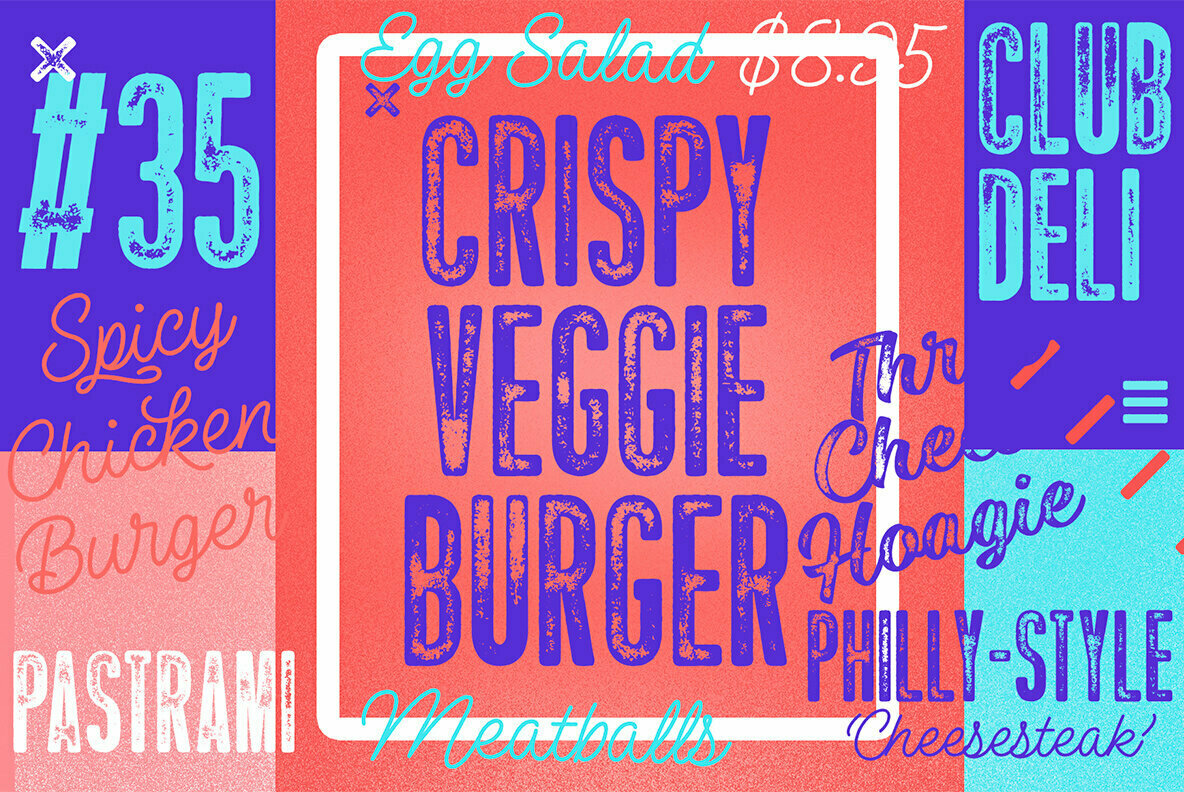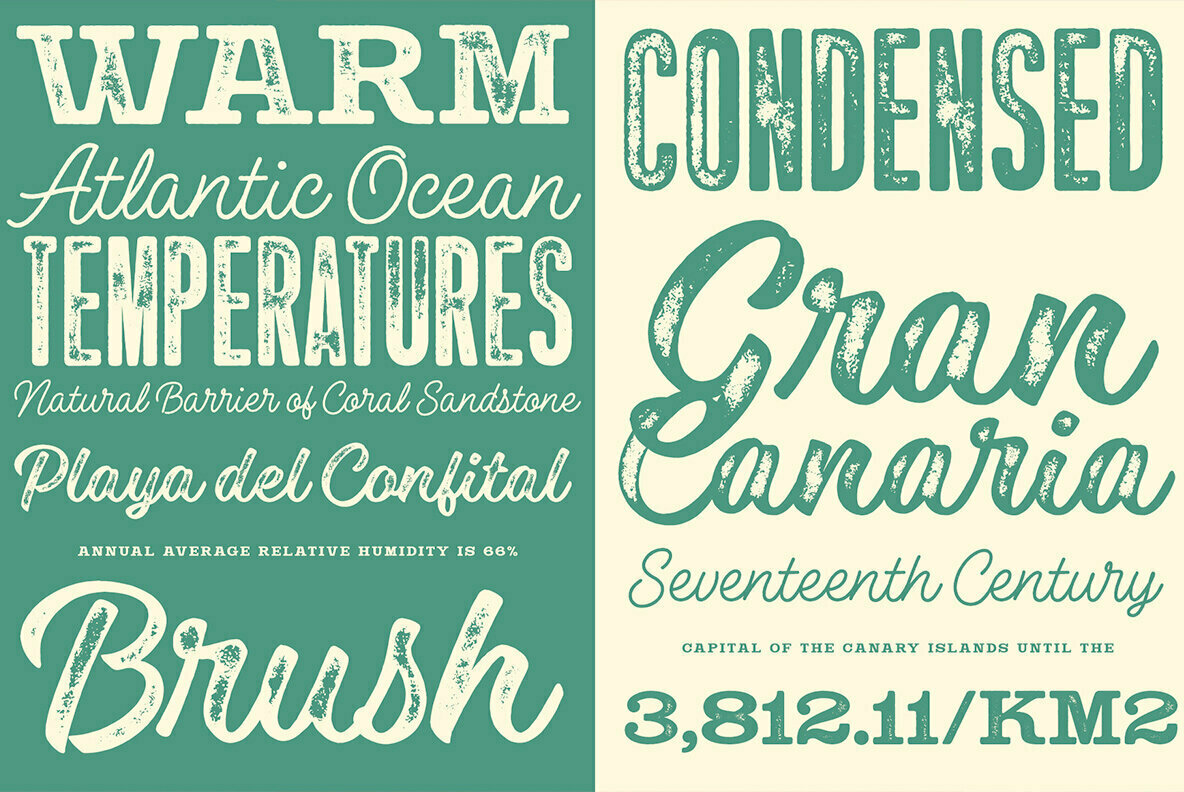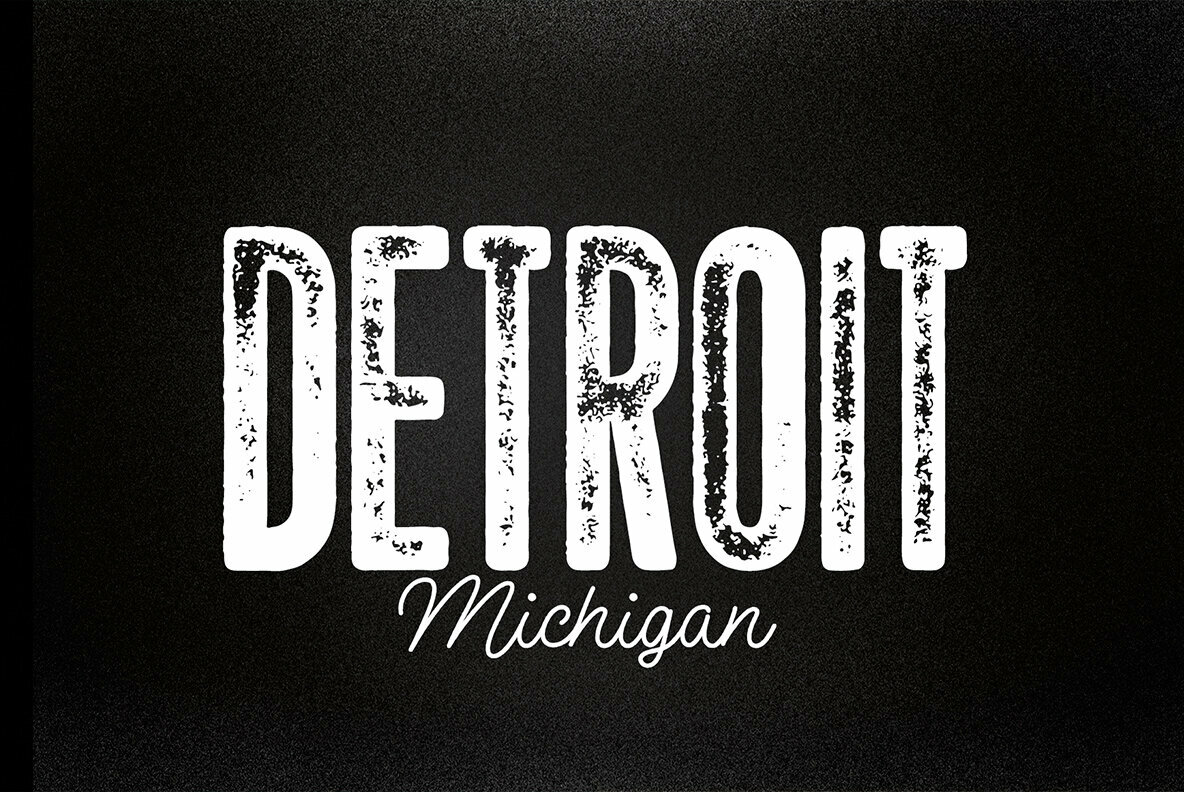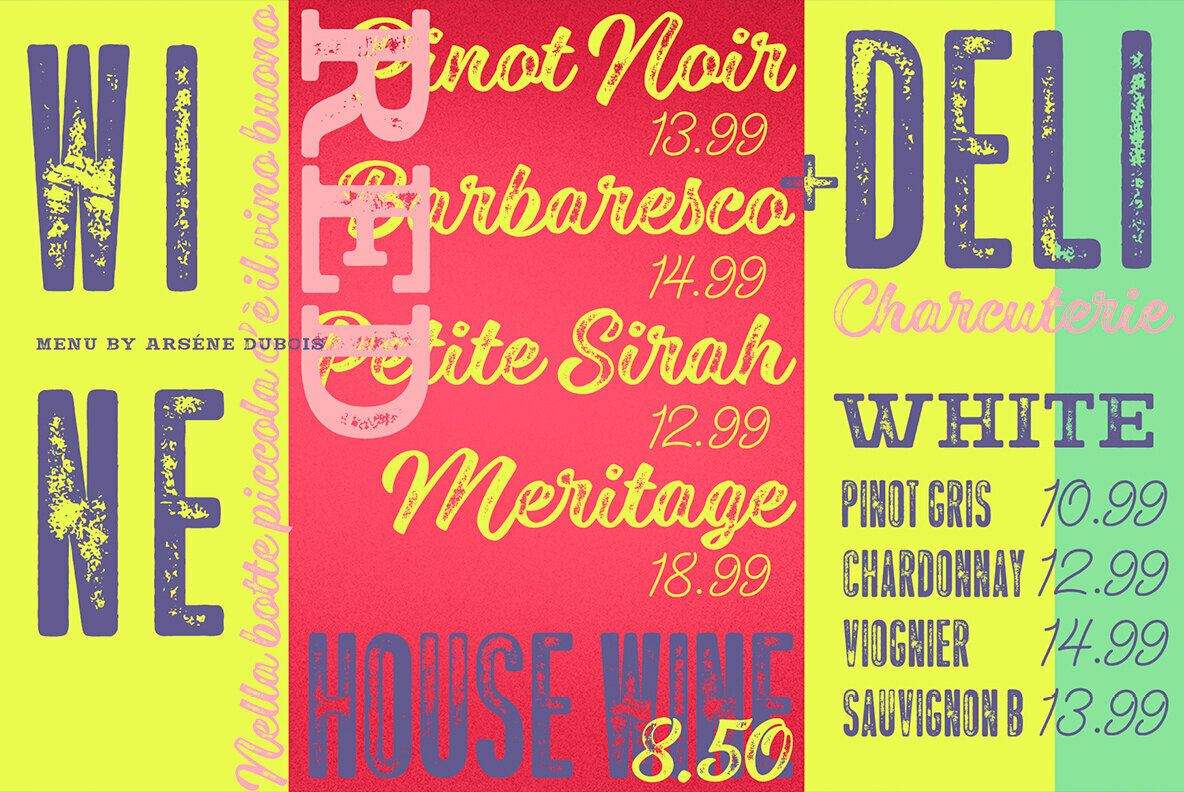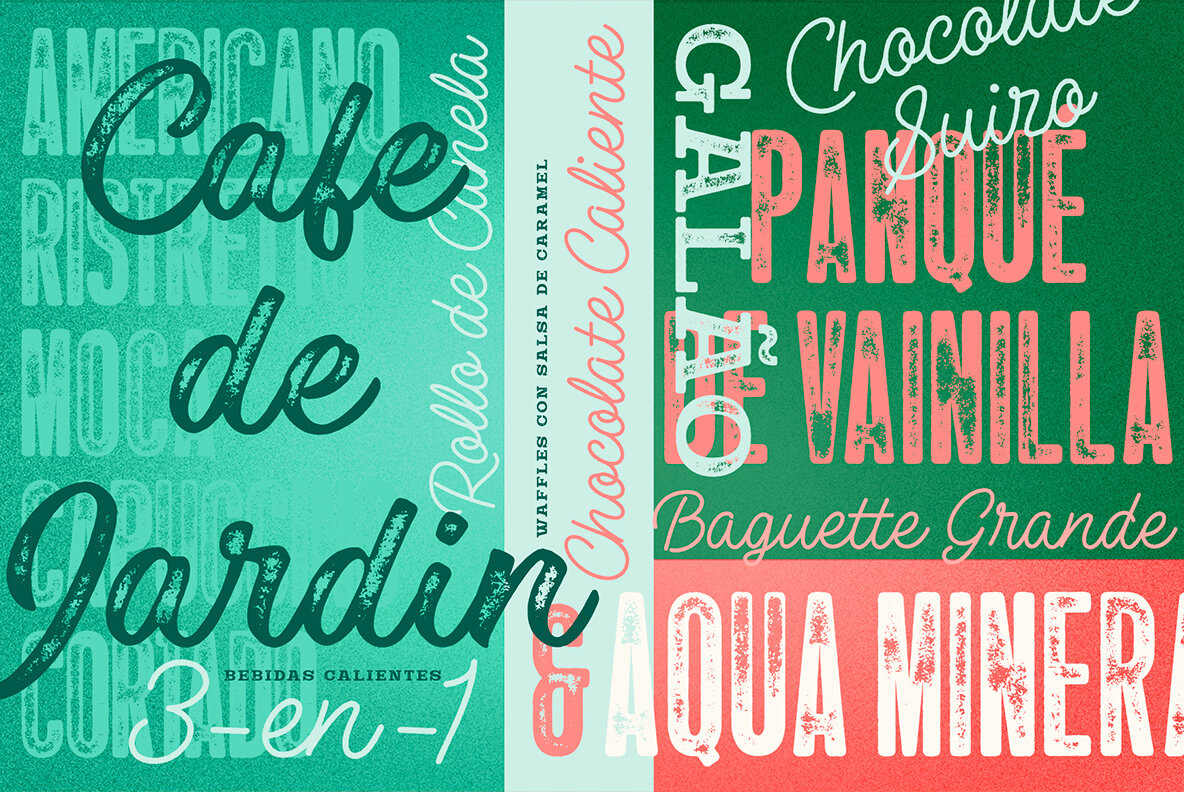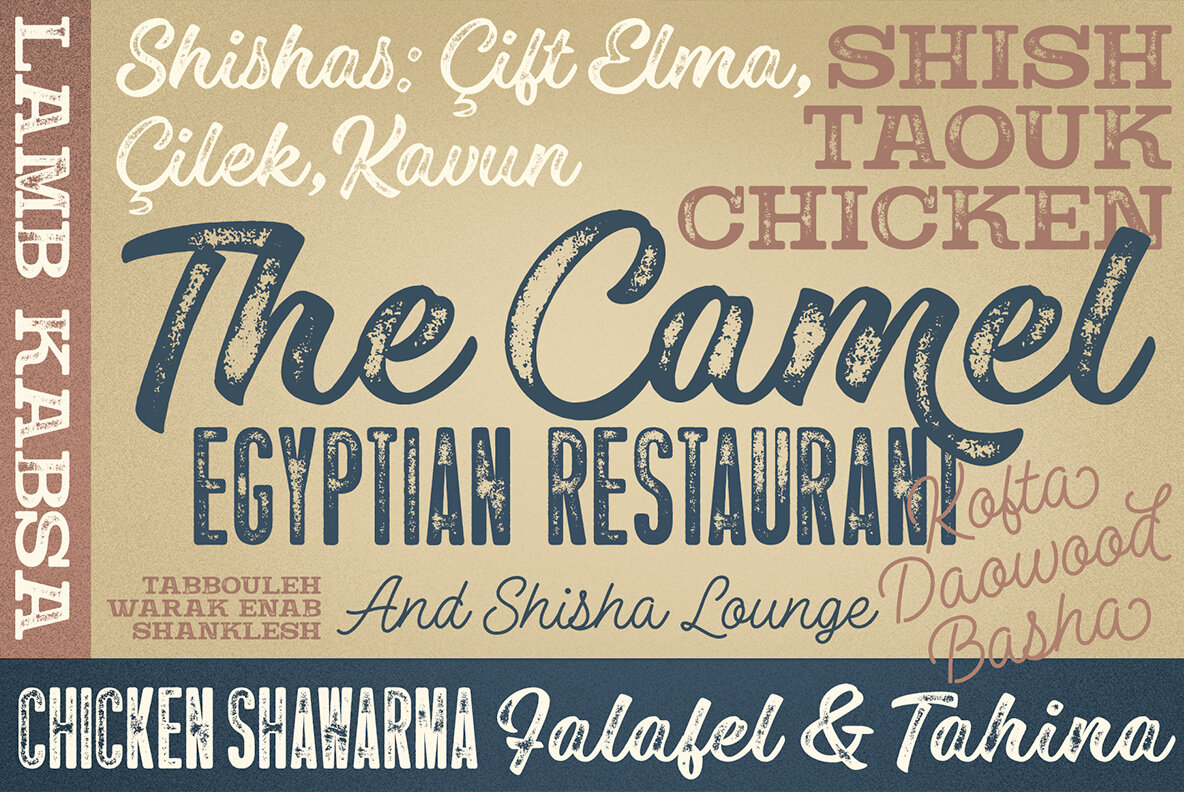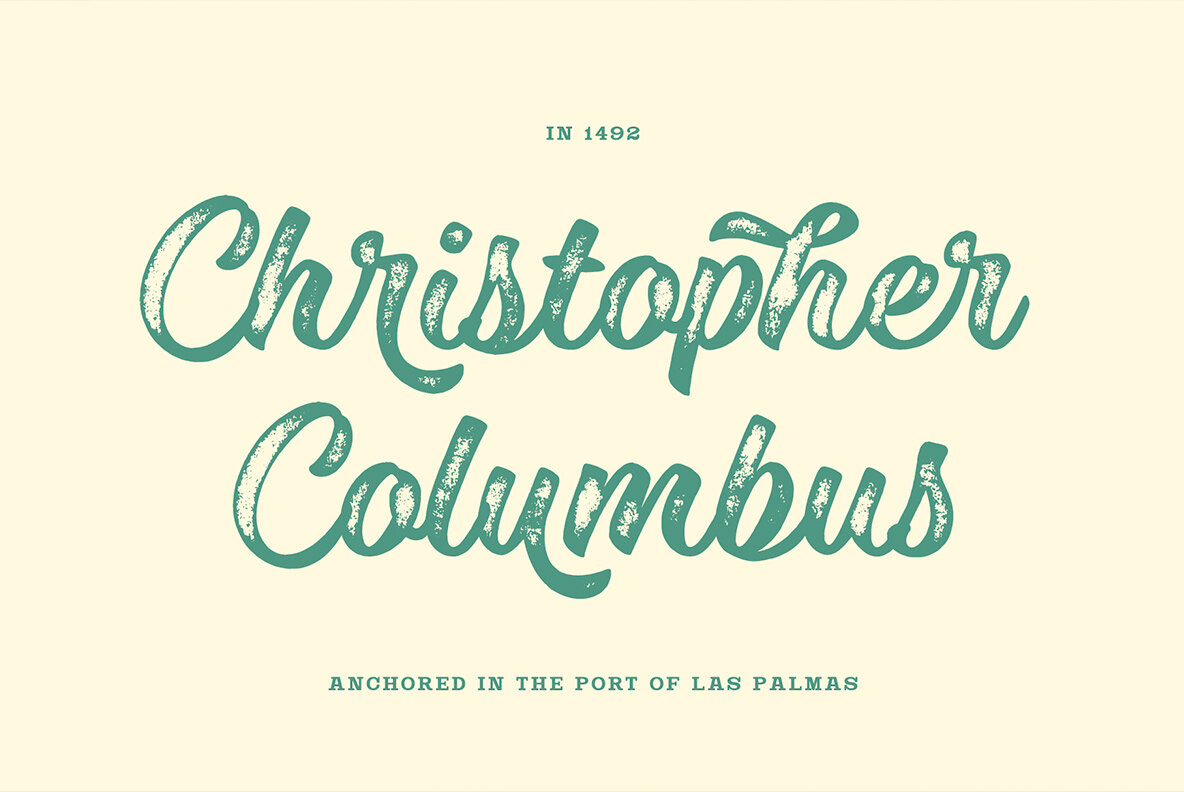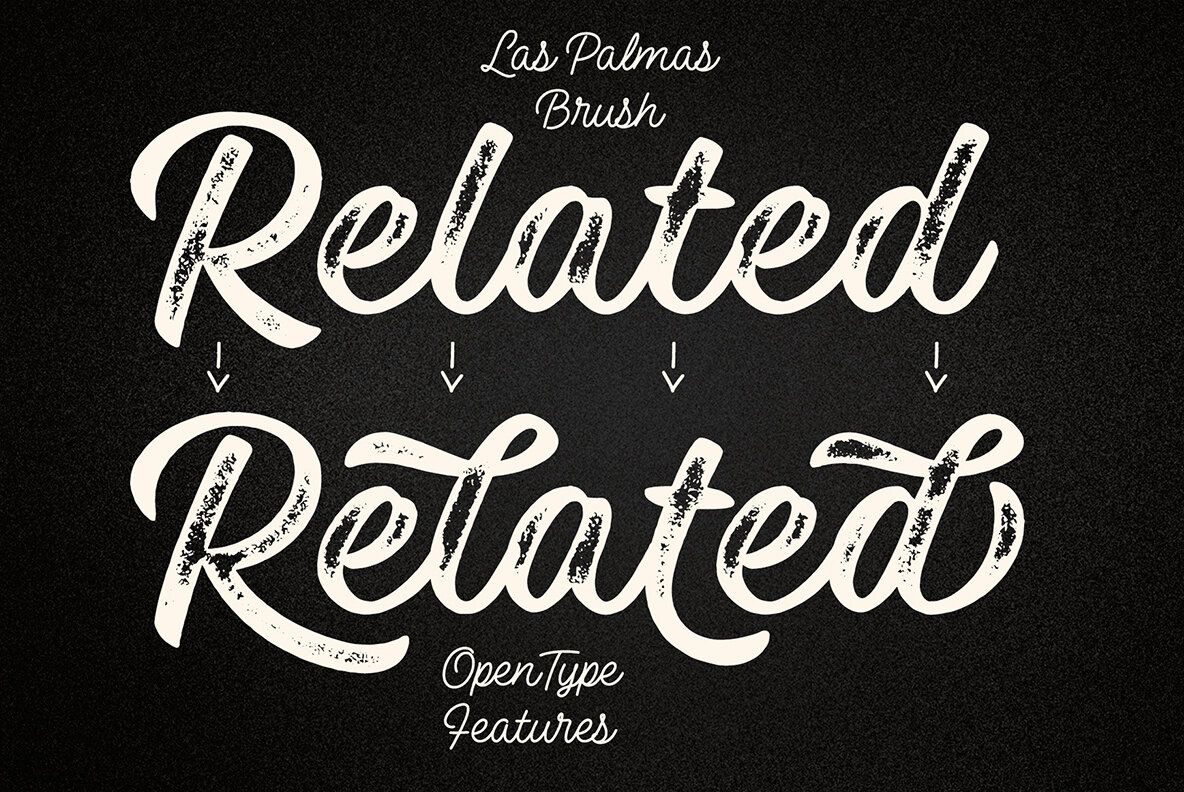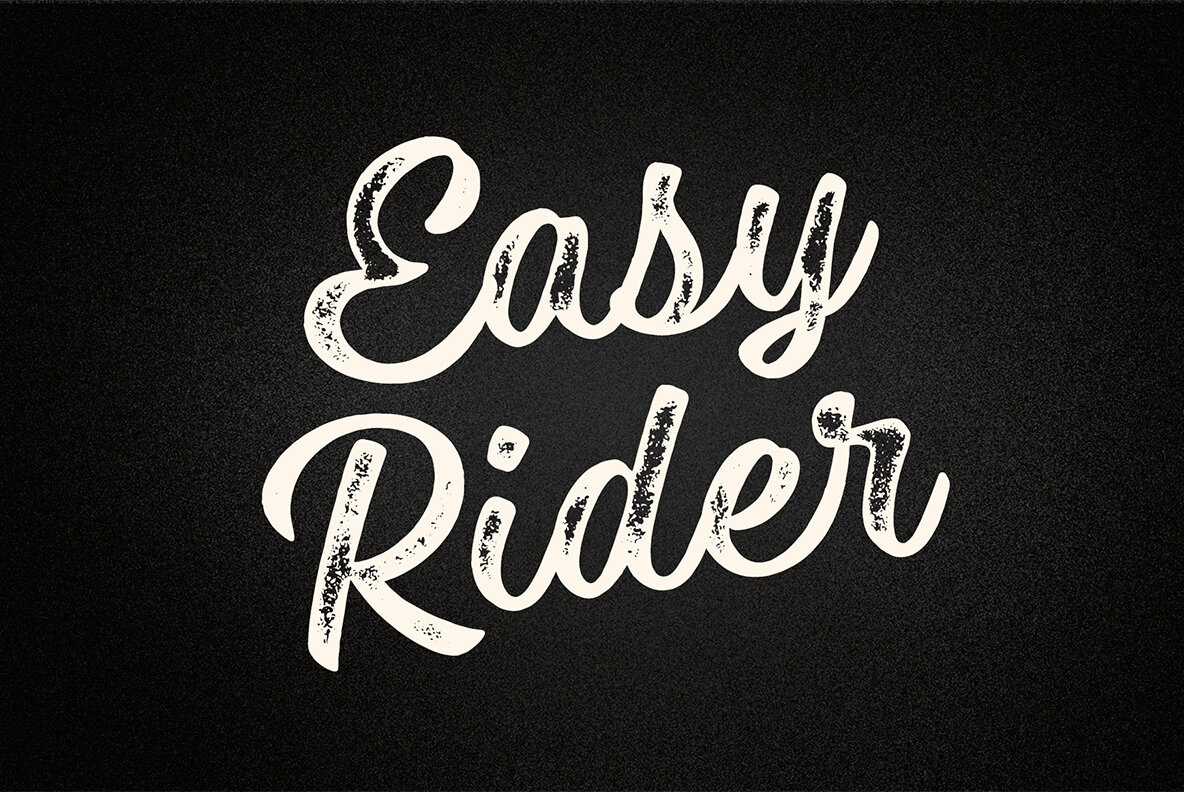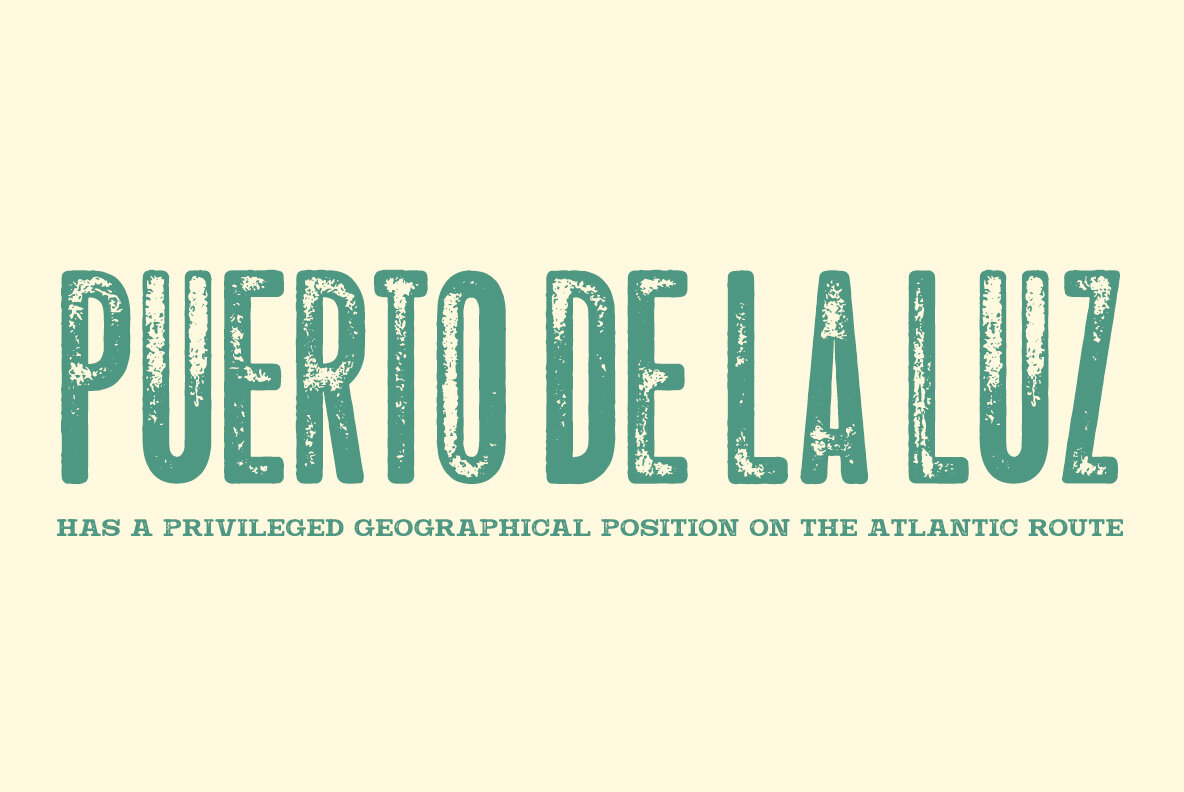
Las Palmas Font
Las Palmas is a vintage type collection with print texture. Las
• Brush - Two weights of a connected Brush Script with Contextual and Swash Alternates
• Pen - A connected monoline Script with Contextual and Swash Alternates
• Slab - Two weights of a chunky Slab Serif with rounded corners
• Condensed - A bold and tight condensed Sans Serif with rounded corners.
Las Palmas fonts are designed to work together - in pairs or more. Las Palmas is great for branding, posters or any display use. If you need a clean version of Las Palmas try Steak And Cheese by Fenotype.